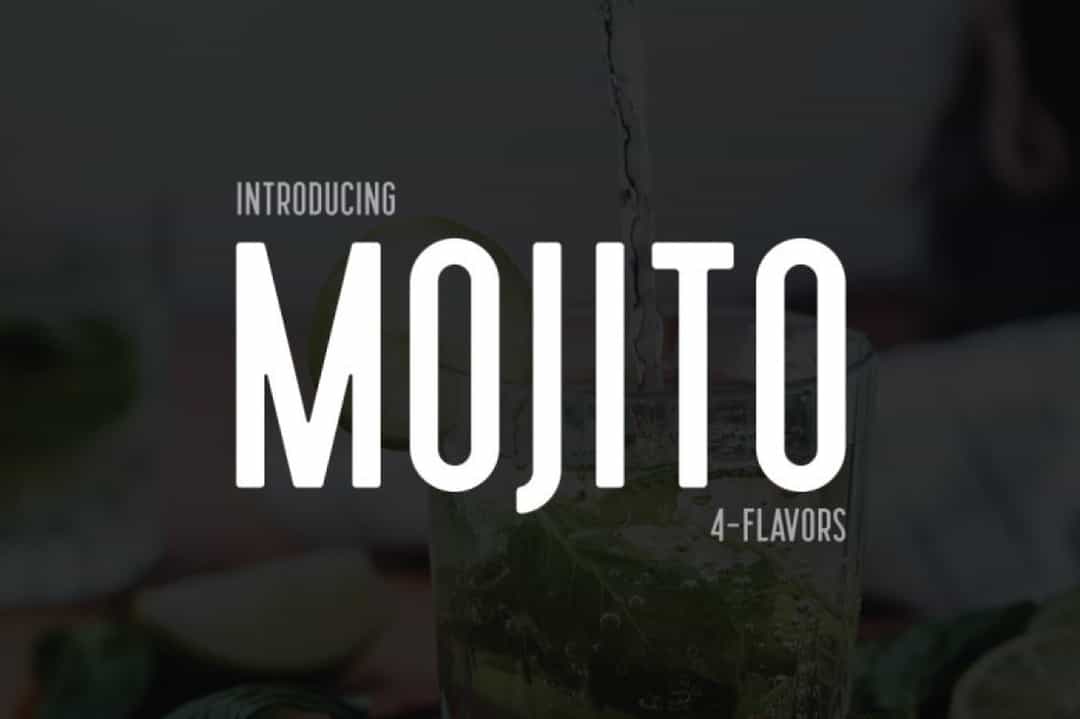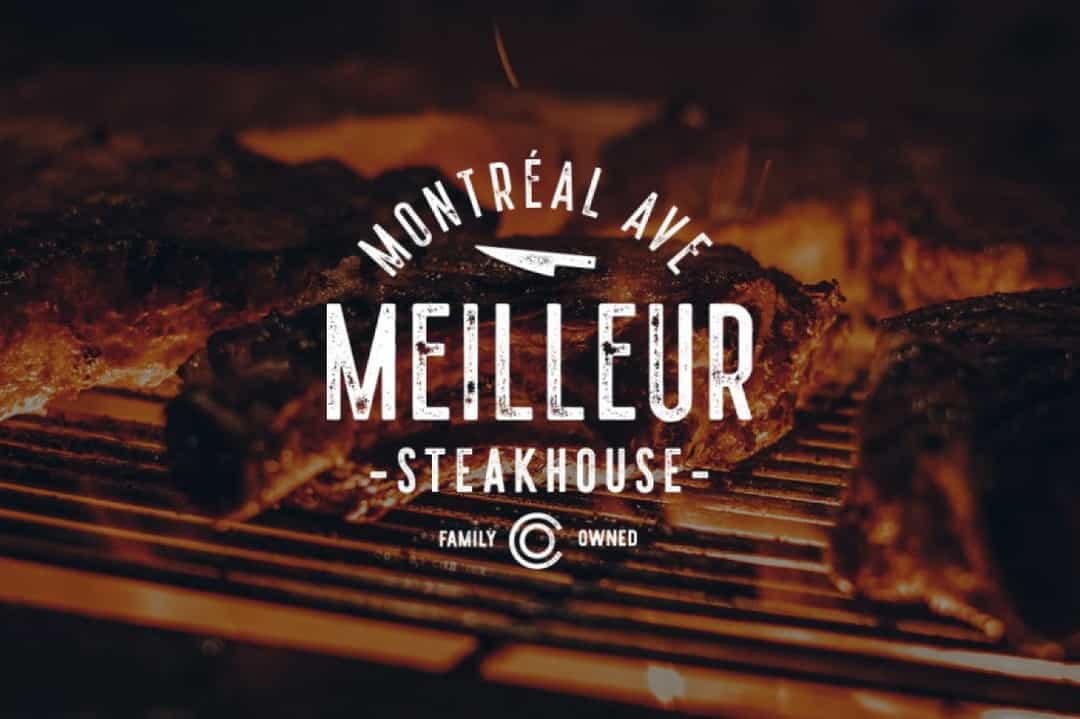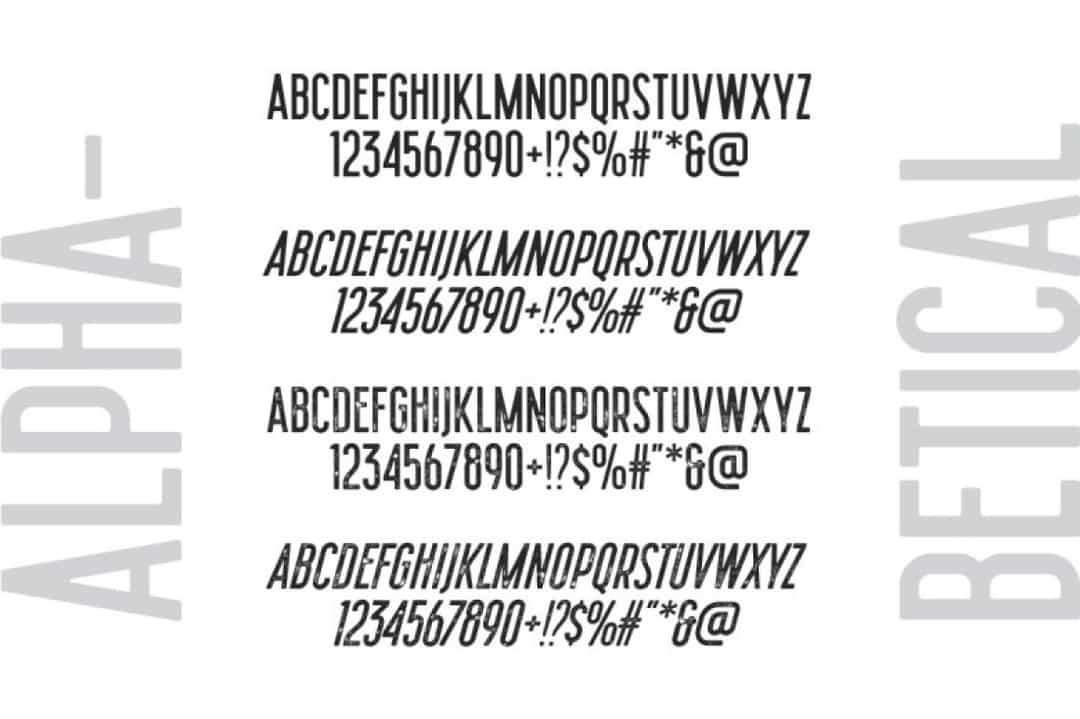
Mojito is an adaptable designed for every project! This semi-condensed font offers smooth and textured fonts with oblique versions of each, perfect for vintage and modern projects alike; perfect for branding logos marketing advertising promotions occasions special events as well as various other applications.